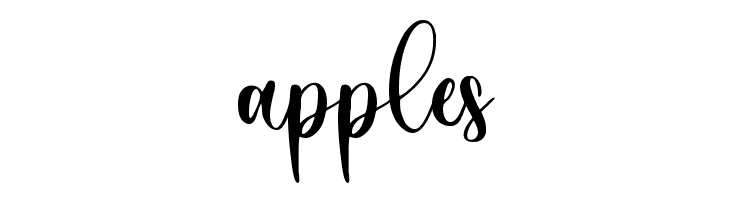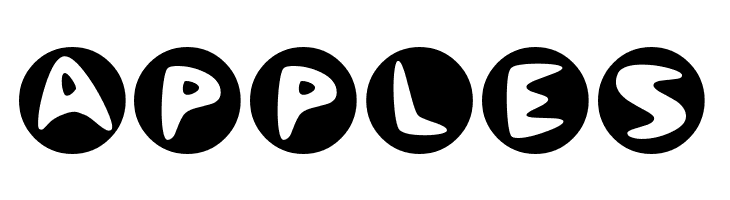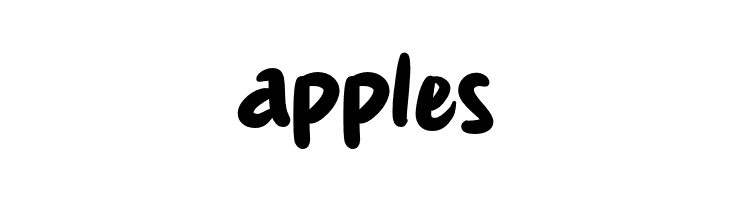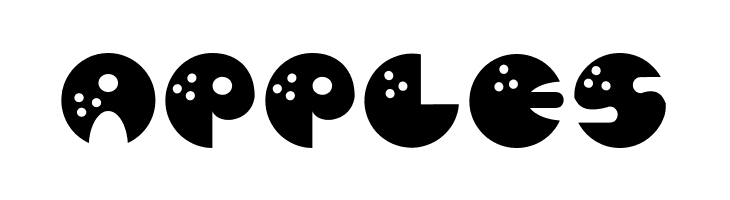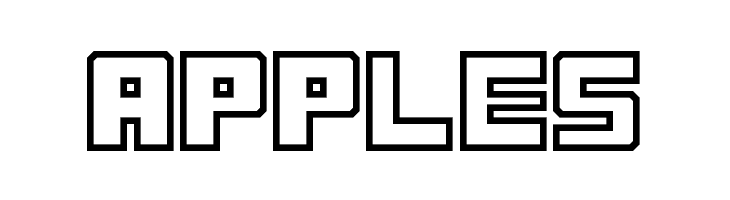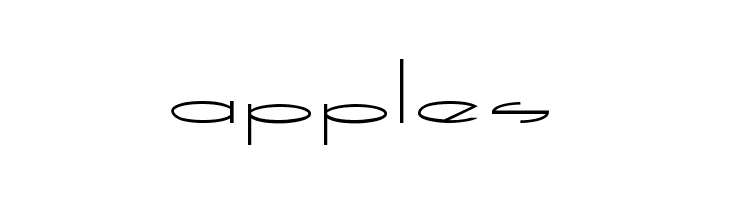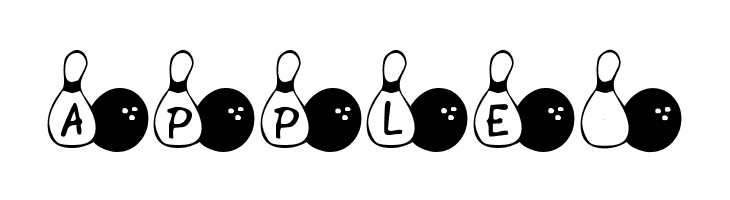
Speed Bowling Font
A sleek, modern font with elongated, thin strokes and a minimalist design.
JASON'S bowling Regular Font
A bold, geometric font with a retro, arcade-inspired style.
JI BowlingBalls Font
A playful, bowling ball-inspired decorative font with bold, rounded characters.
Bowling Shoes Font
A whimsical, artistic font with elongated, curvy strokes and elegant swirls.
Bowling Font
A bold, playful handwritten font with thick, rounded strokes.
White Bowling Font
A lively, expressive handwritten font with dynamic cursive letterforms.